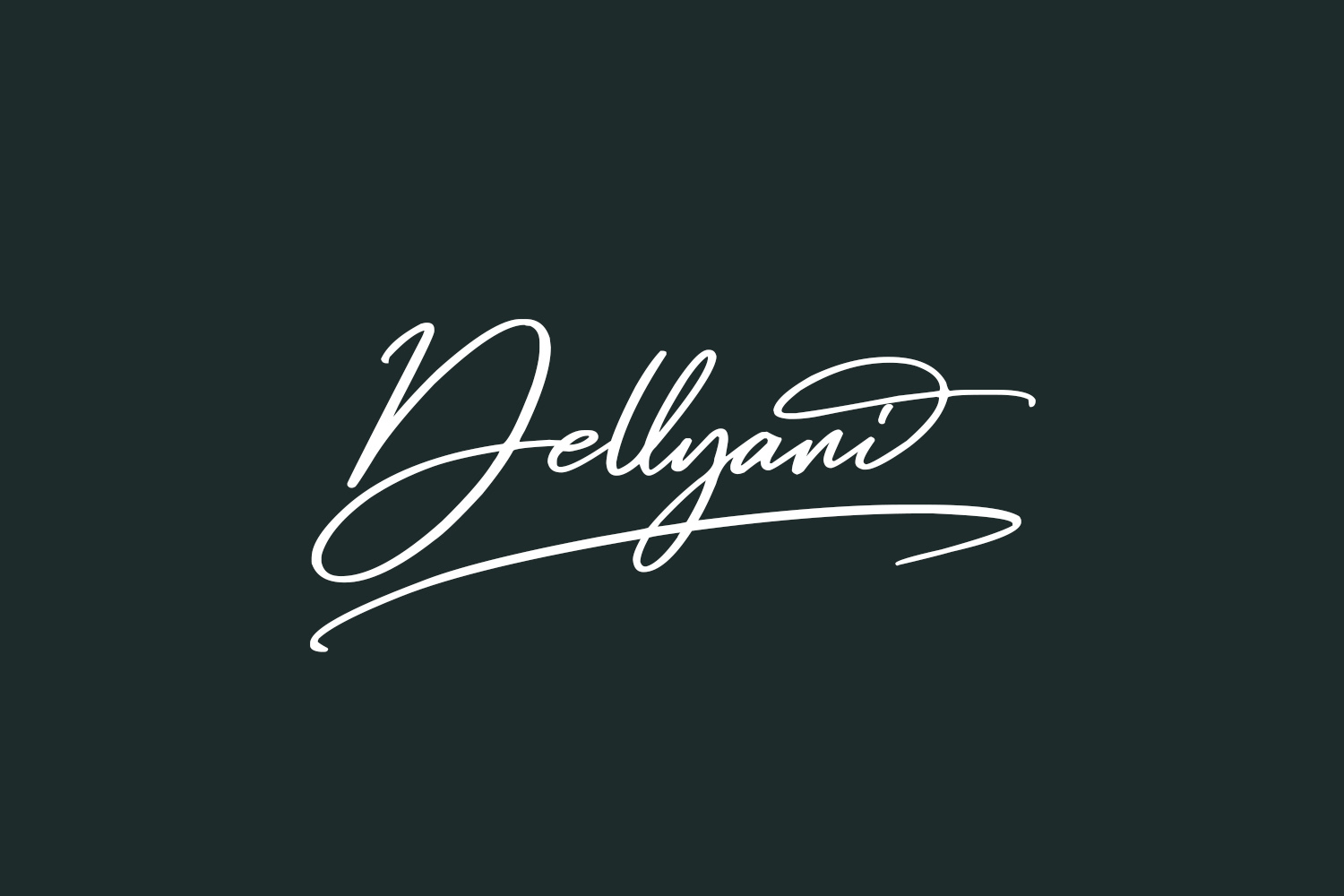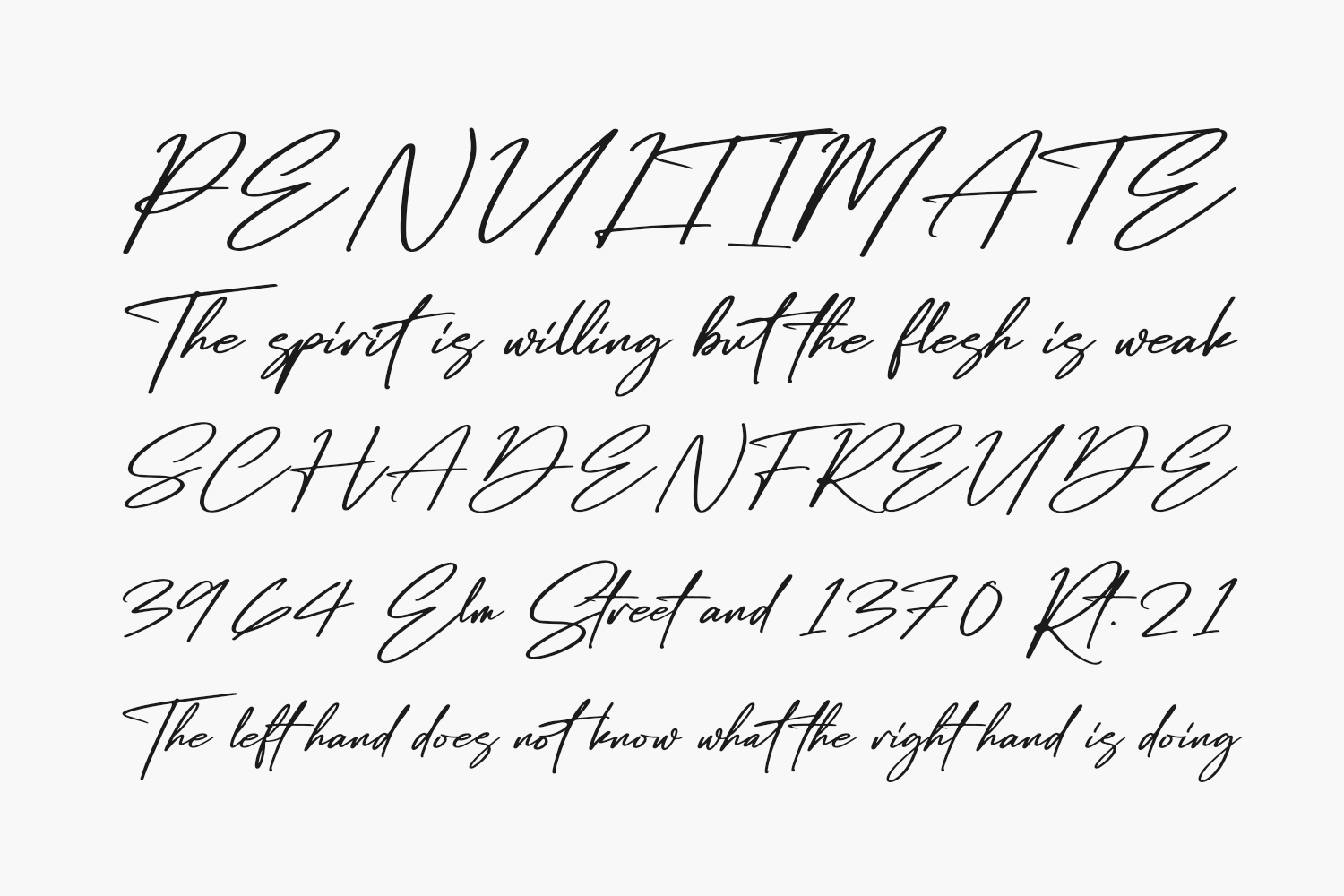
Dellyani Free Font is a lovely and timeless handwritten font. It is the best choice for creating eye-catching logos, branding and quotes. Every letter has a unique and beautiful touch, which will make your design come alive. Dellyani Free Font was designed by Integritype Studio and is free for personal use only. Please purchase the full version for commercial use.